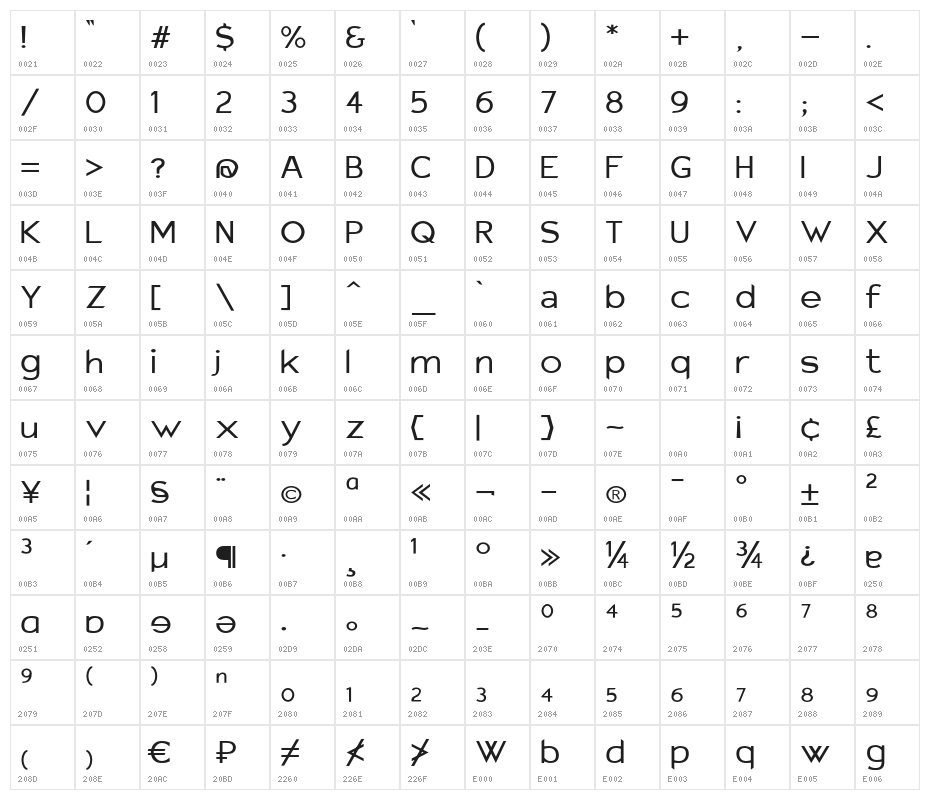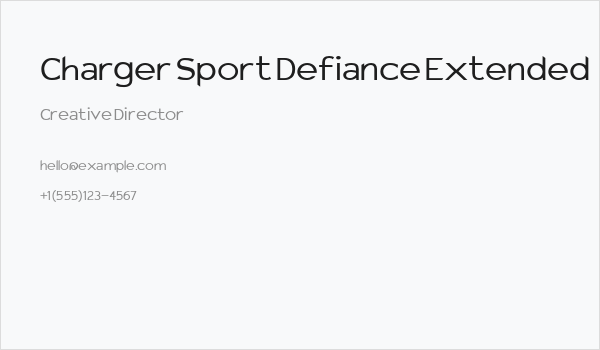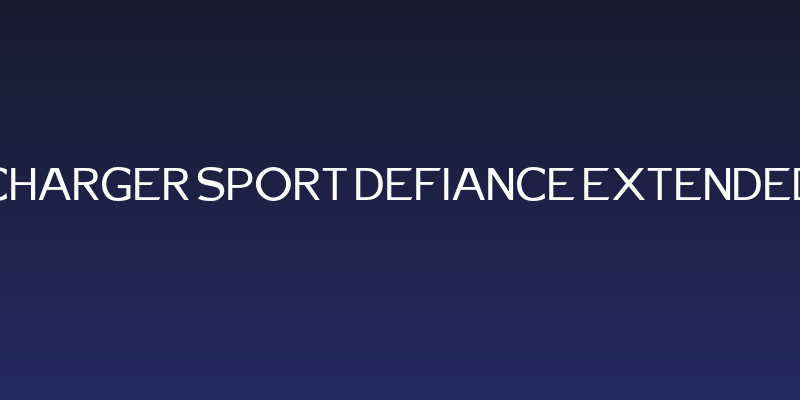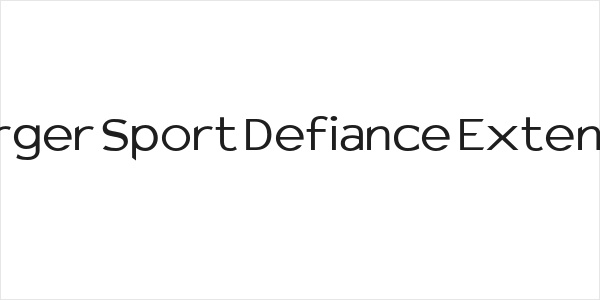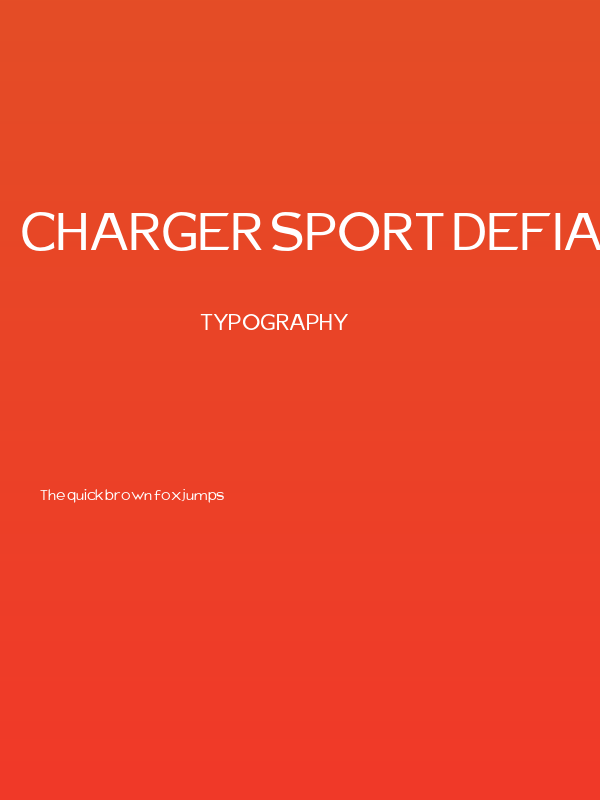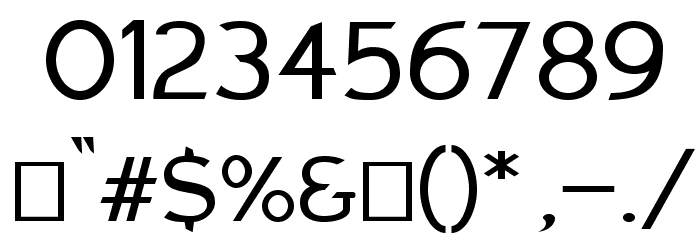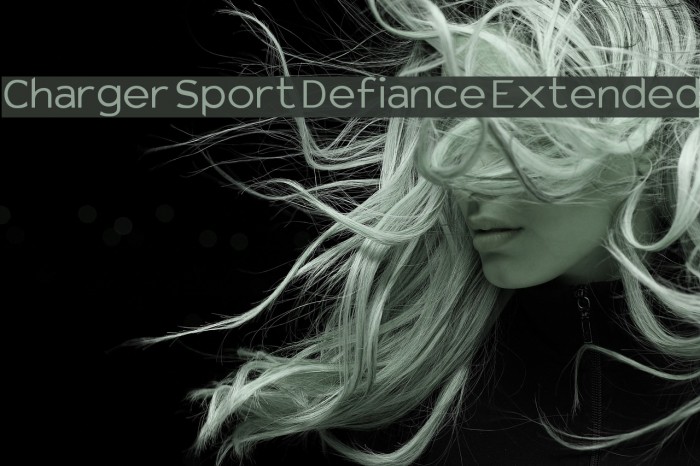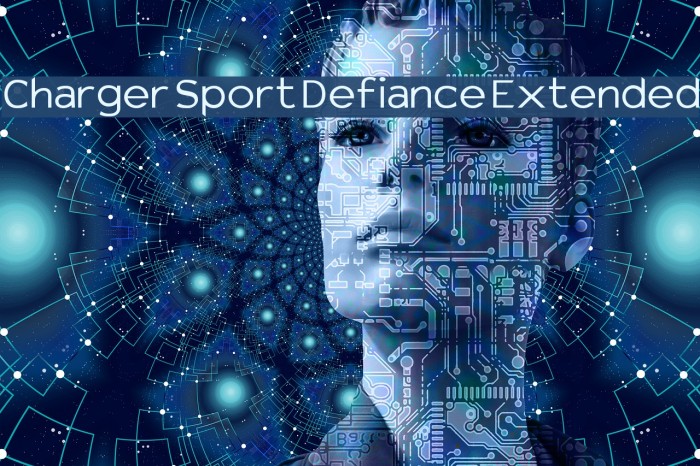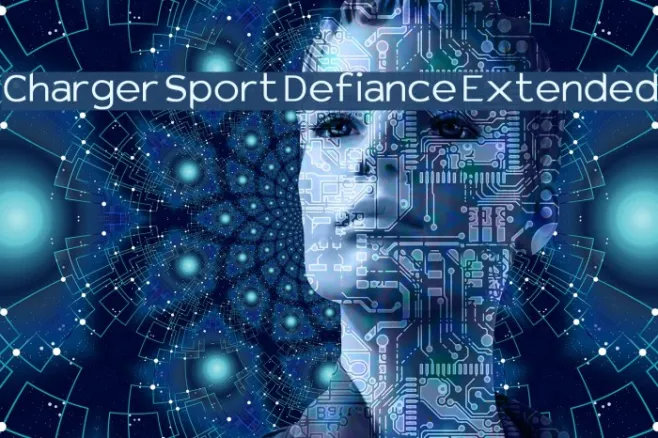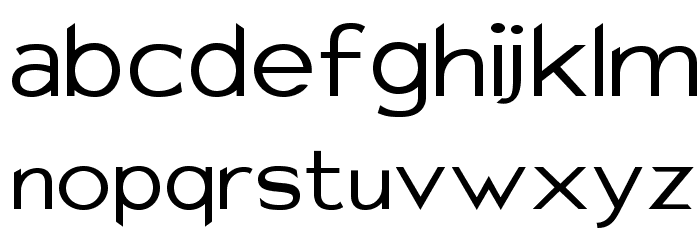
Charger Sport Defiance Extended Font
Charger Sport Defiance Extended Description
This font features a sleek and modern sans-serif design with clean lines and a geometric structure. The uppercase letters are bold and assertive, while the lowercase letters maintain a consistent and harmonious flow. The numerals are clear and easily distinguishable, making them suitable for various applications. Special characters are well-defined, adding versatility to the font's use. The overall design is minimalistic yet impactful, making it ideal for contemporary projects.
| Use Case | Headlines, Logos, Digital Interfaces |
| Proposed Projects | Ideal for branding, advertising, digital interfaces, and editorial design where a modern and clean aesthetic is desired. |